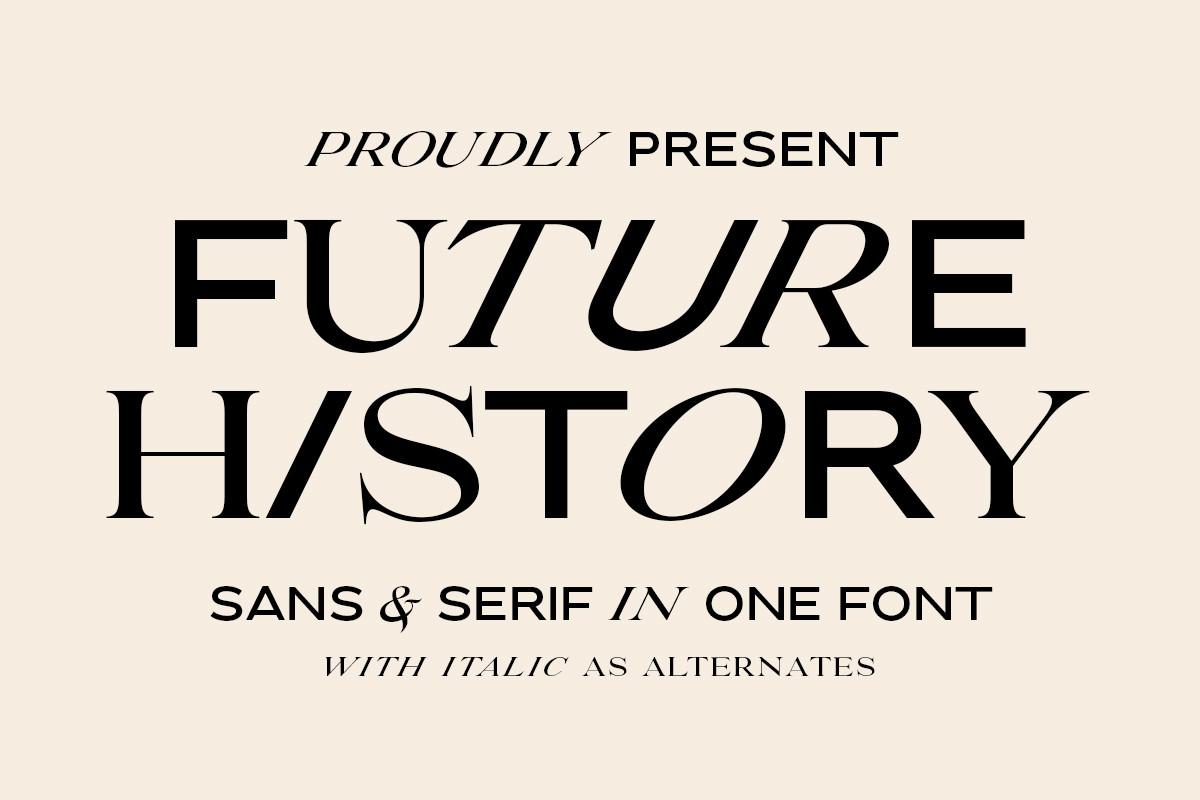
Future History Font Description
Future History is a cool, assertive and uniquely designed display font. It is PUA encoded which means you can access all of the glyphs and swashes with ease! Add it confidently to your favorite creations and let yourself be amazed by the outcome generated.